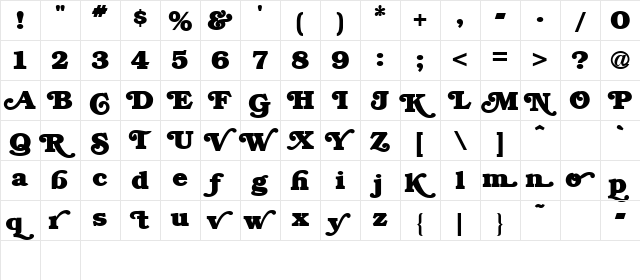
BRYANT Regular
Design Context for BRYANT Typeface
BRYANT is a composed and adaptable typeface that performs quietly and consistently across a wide range of design contexts.